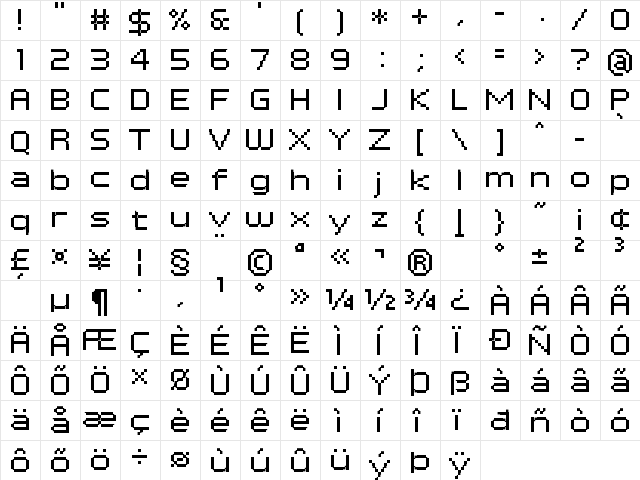
PF Tempesta Seven Extended Regular
Design Context for PF Tempesta Seven Extended Typeface
PF Tempesta Seven Extended takes a measured approach to typography — its balanced proportions and neutral character make it a reliable workhorse for both digital and print work.